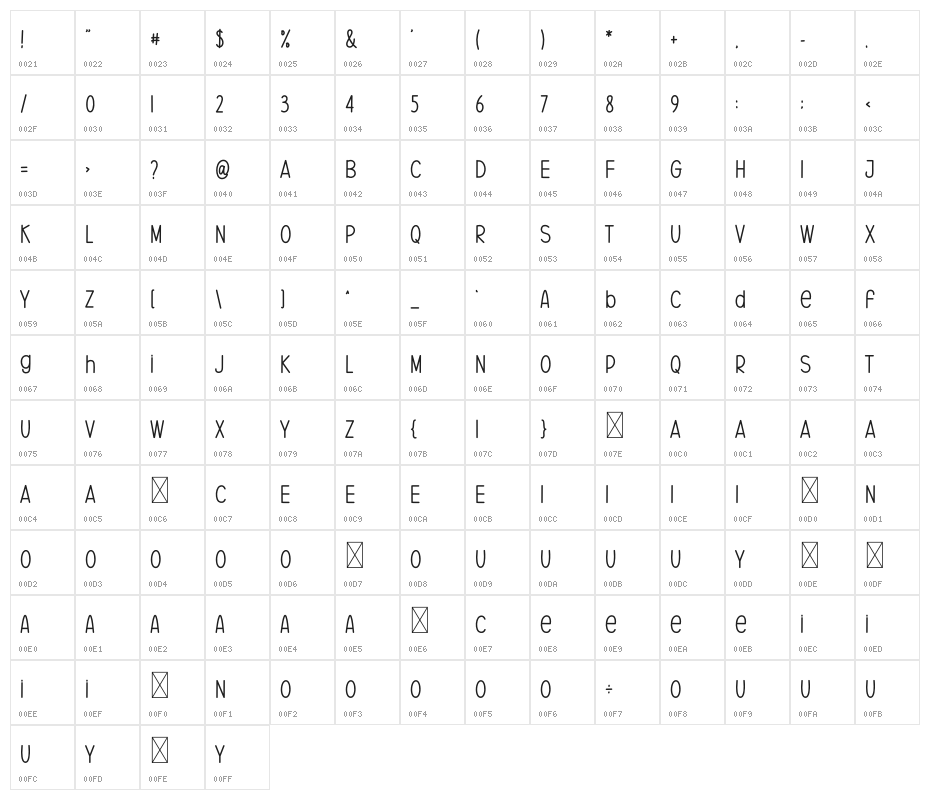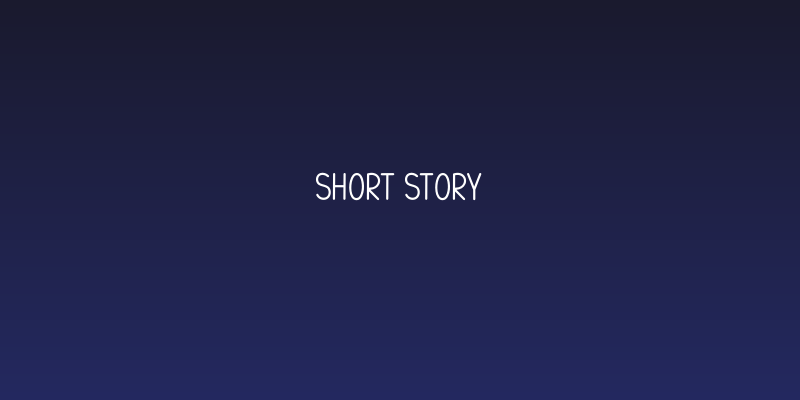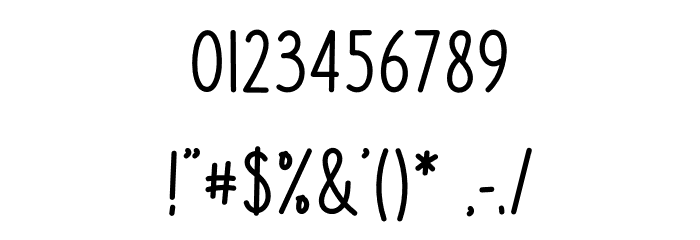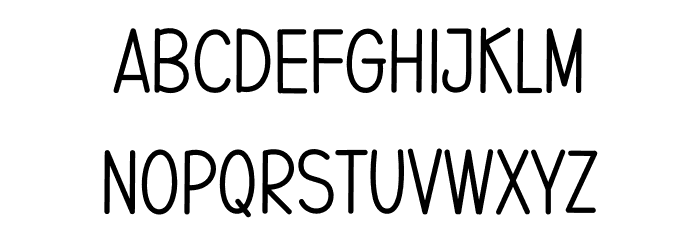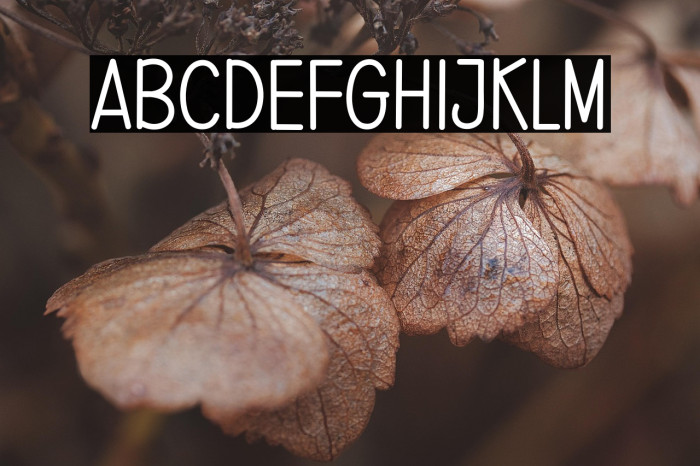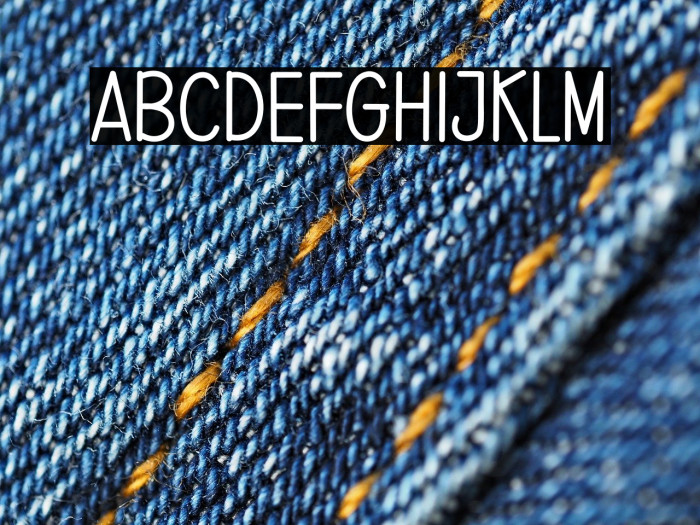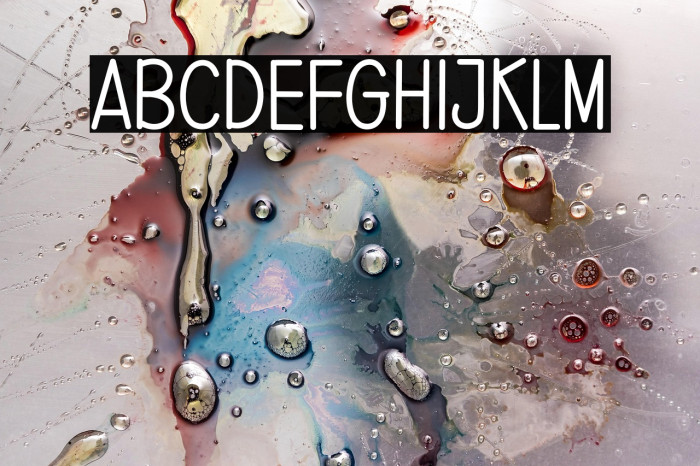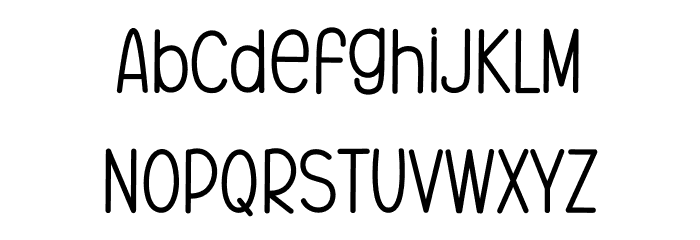
Short Story Font
Short Story Description
A playful, rounded sans-serif font with uniform stroke width, open counters, and a friendly, informal appearance. The characters are slightly condensed with generous spacing, and the overall design is approachable and legible.
| Overall Style | Playful, Informal, Modern |
| Use Case | Headlines, Children's books, Informal body text |
| Proposed Projects | Children's books, educational materials, casual branding, greeting cards, informal web design. |